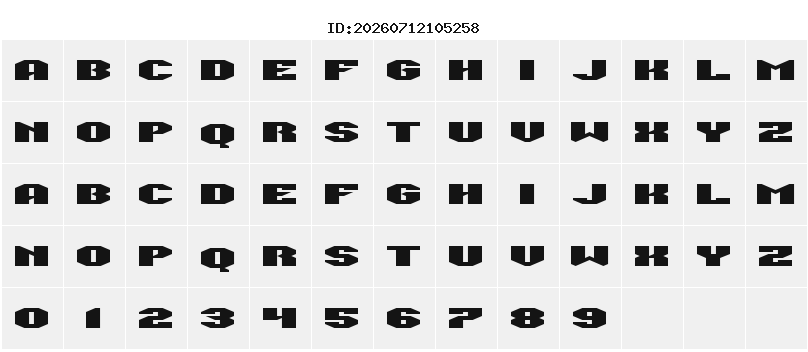
Man Flu Preview
• Font Name: Man Flu
• Font ID: FontStruct Man Flu
• Full Font Name: Man Flu Regular
• PostScript Name: Man-Flu
• Character Count: 94
• Designer: Andrew McCluskey
• Description: ‚ÄúMan Flu‚Äù was built with FontStruct
About Man Flu.ttf
Man Flu.ttf is a modern, elegant sans-serif font designed for ultimate readability and visual harmony. Perfect for branding, headlines, web design, and print materials.